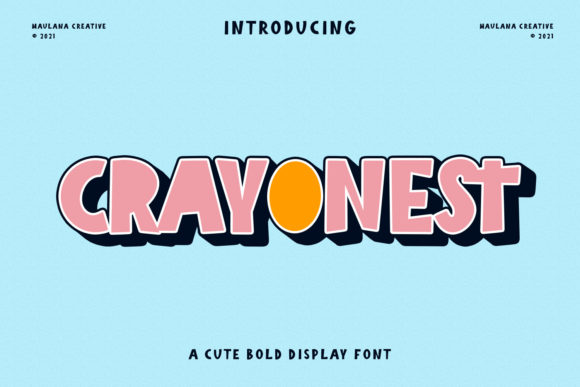
Unleash the magic of Crayonest, the captivating display font that ignites the imagination and brings a touch of whimsy to your creative projects. With its vibrant palette and playful personality, Crayonest is a feast for the eyes, perfect for capturing the vibrant energy of childhood and injecting a dash of fun into any design.
Crayonest is not just a font; it's an artistic expression that dances across the screen, evoking memories of childhood scribbles and the boundless creativity of little ones. Its playful curves and vibrant colors create a sense of movement and joy, making it the perfect choice for projects that demand attention and a sprinkle of delight.
Step into a world of imagination where Crayonest takes center stage, transforming your designs into enchanting tales. Picture a children's book that comes alive, its pages filled with the whimsical adventures of Crayonest characters. Or envision a classroom poster that sparks curiosity and engagement, its letters popping off the page with playful energy.
With Crayonest, the possibilities are endless. Its versatility knows no bounds, extending beyond children's projects. Let your creativity run wild as you explore the world of branding, packaging, social media campaigns, and more. Crayonest adds a touch of magic to any project, capturing the essence of youthfulness and sparking a sense of wonder in all who behold it.
Don't let your designs be mundane; let them burst with color, vibrancy, and a dash of imagination. Embrace Crayonest, the font that unleashes the child within, transforming your creative endeavors into masterpieces of joy and enchantment.